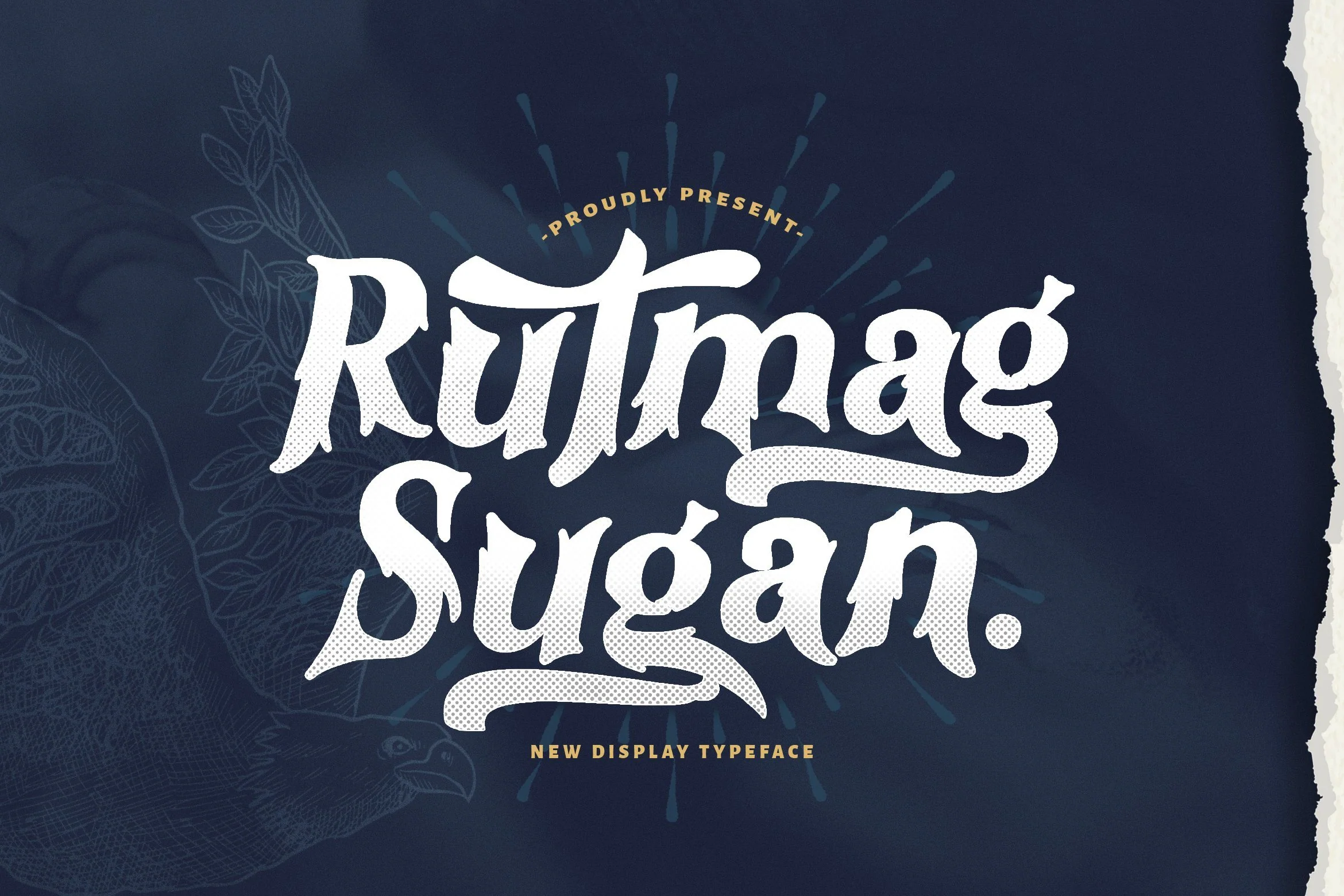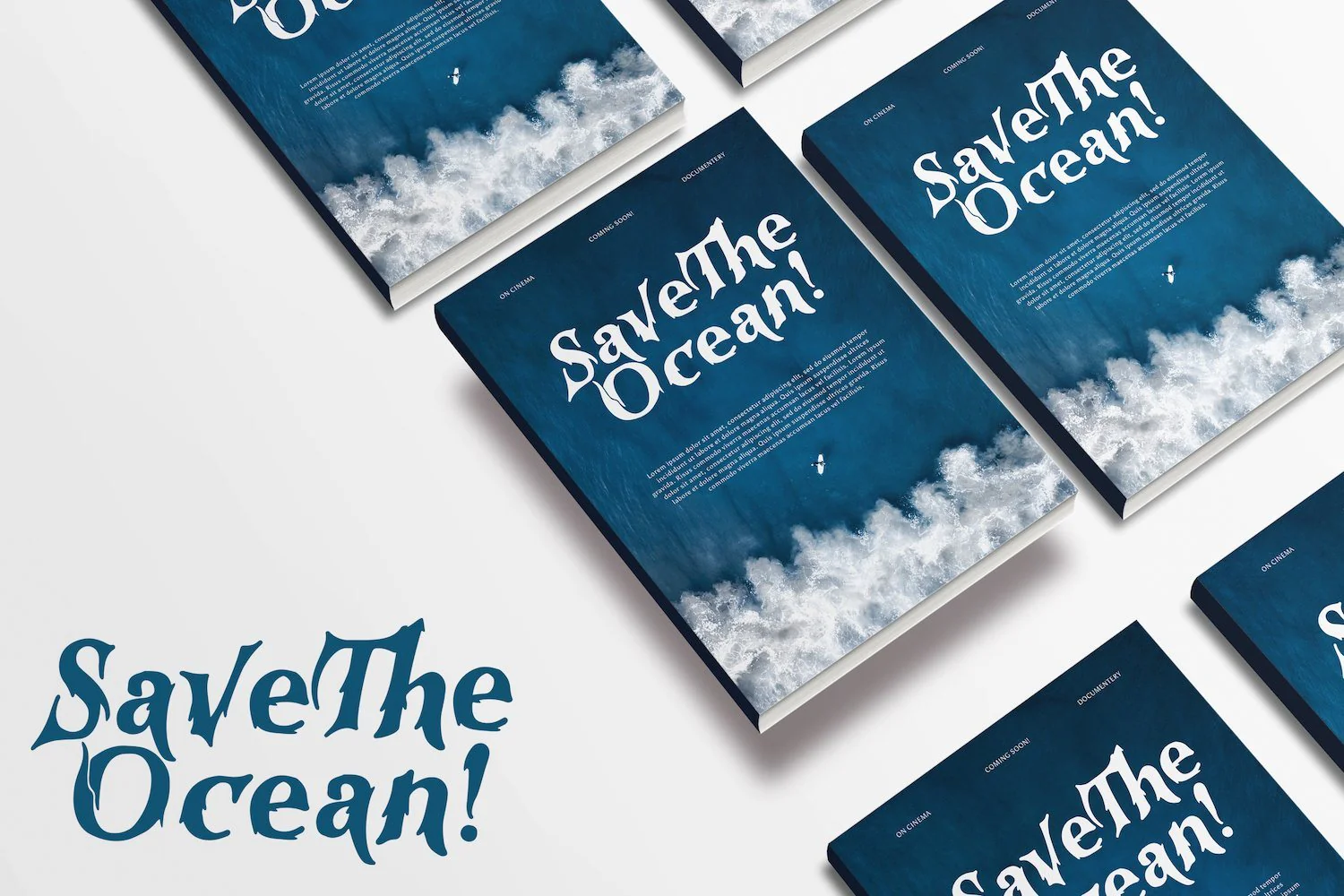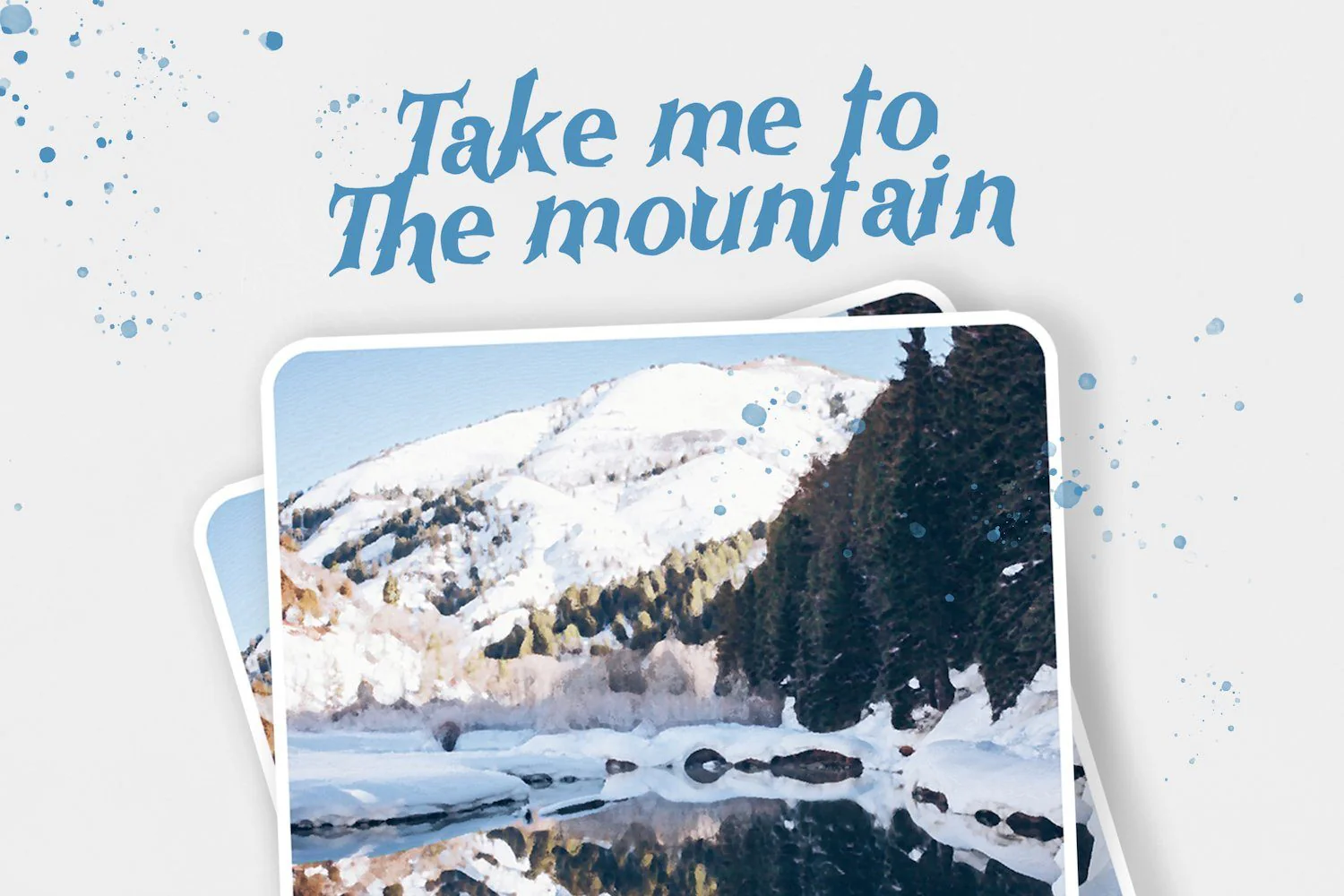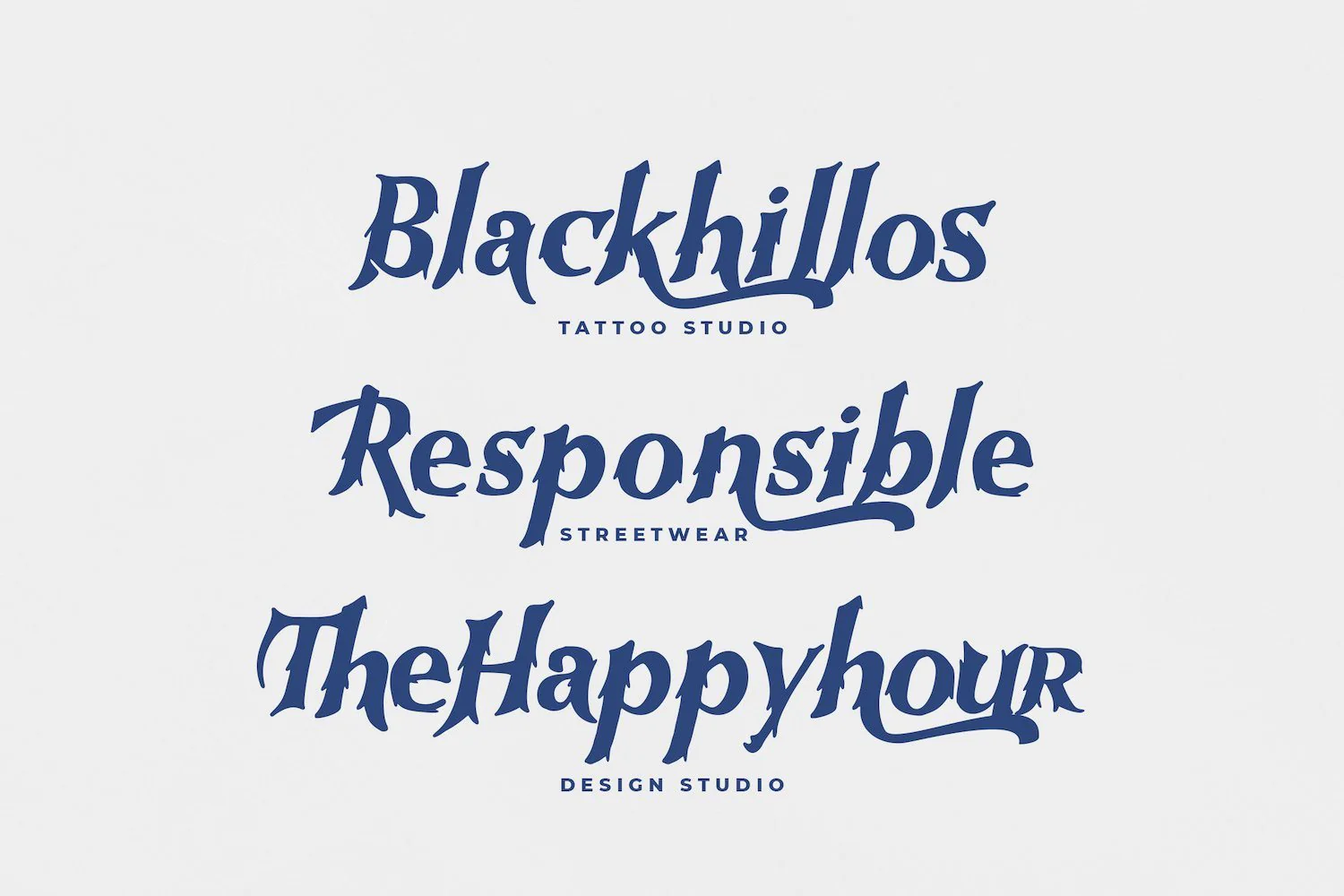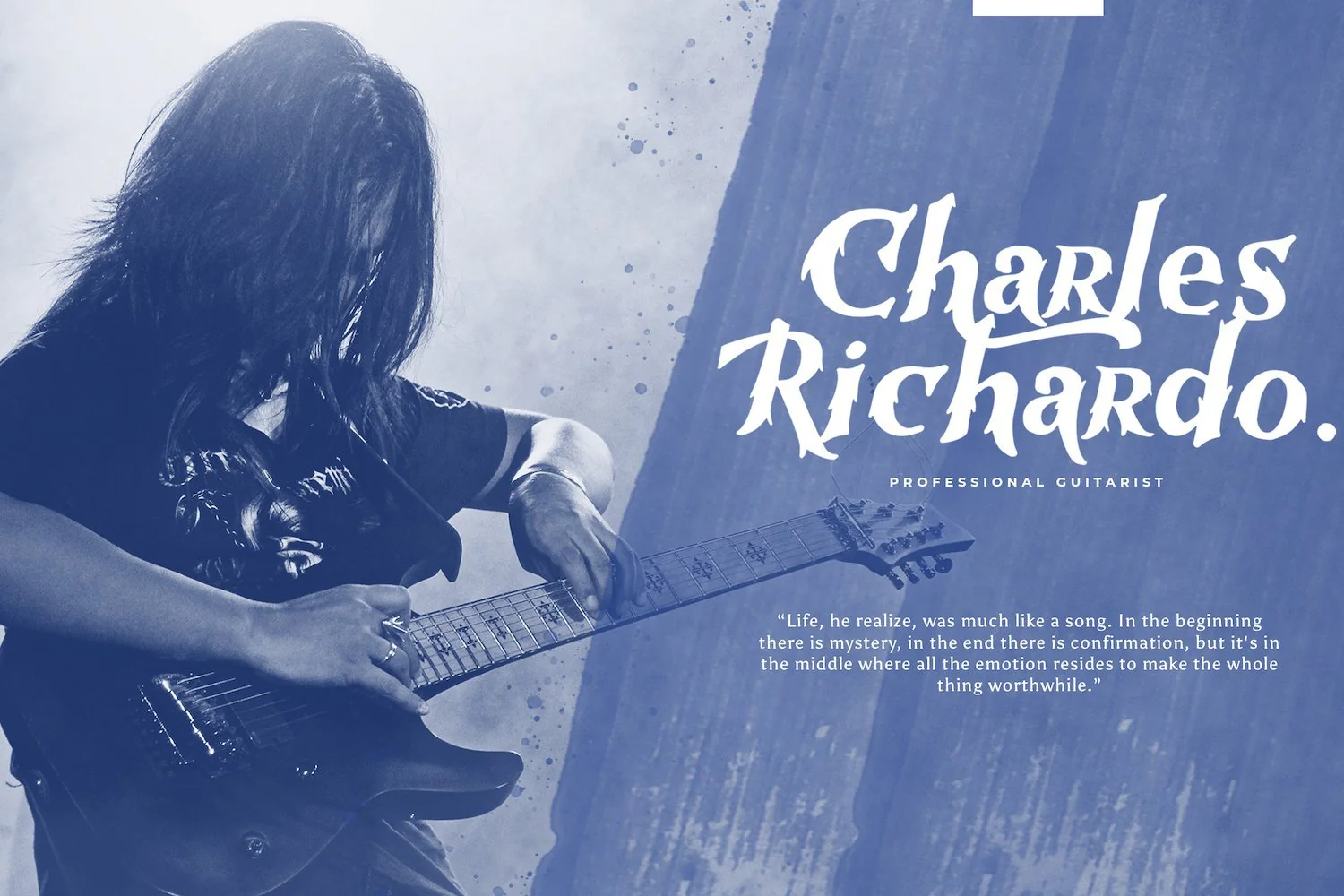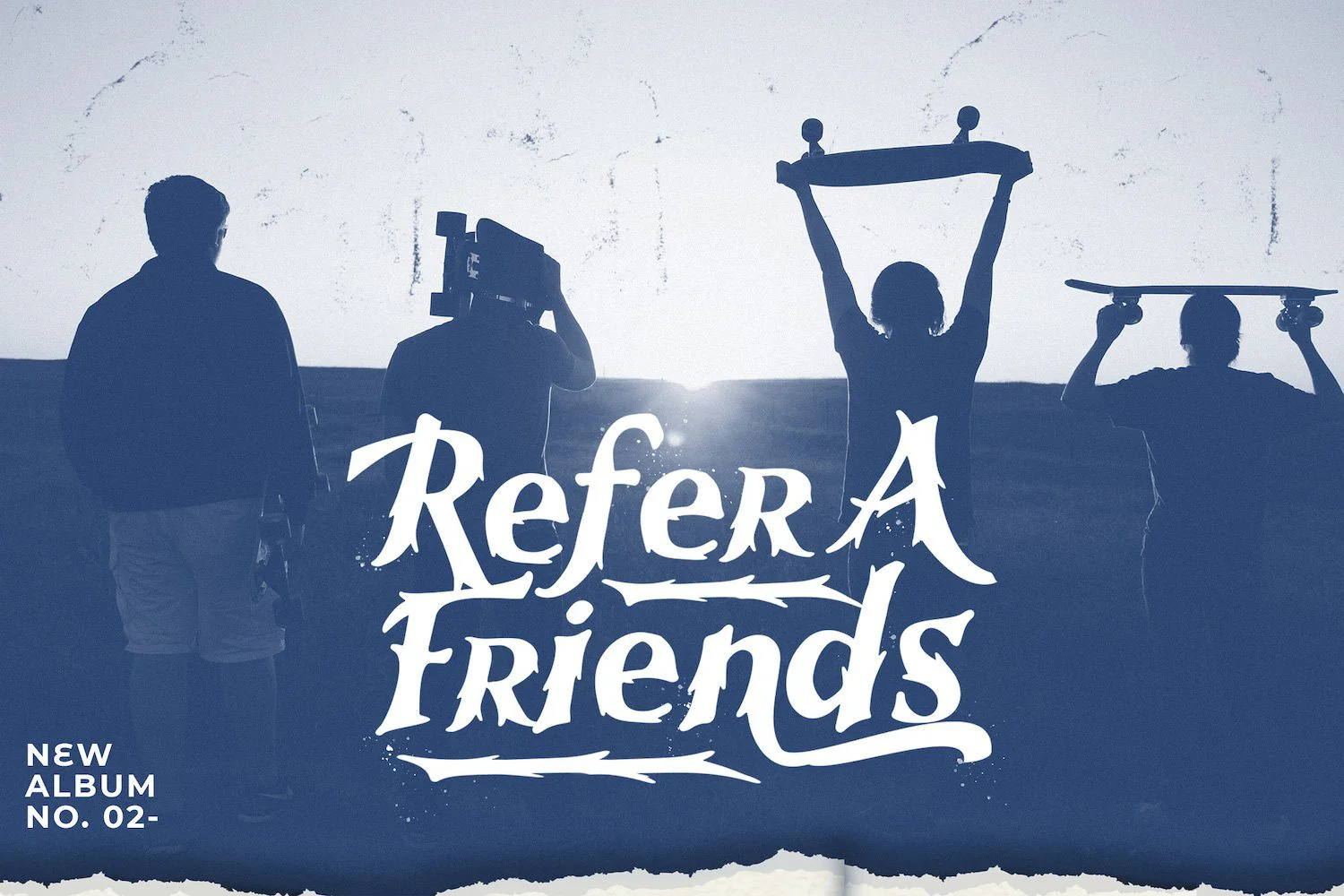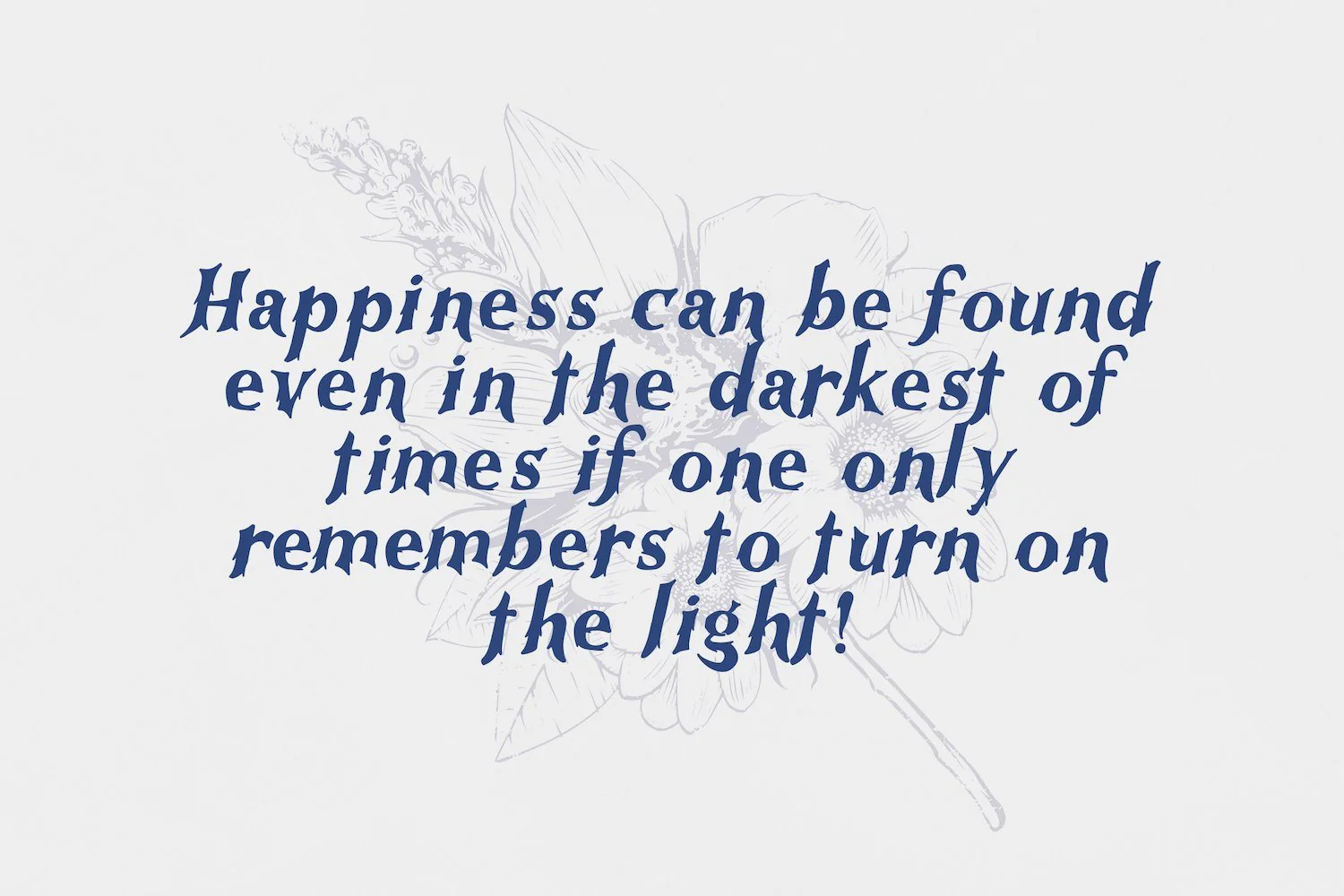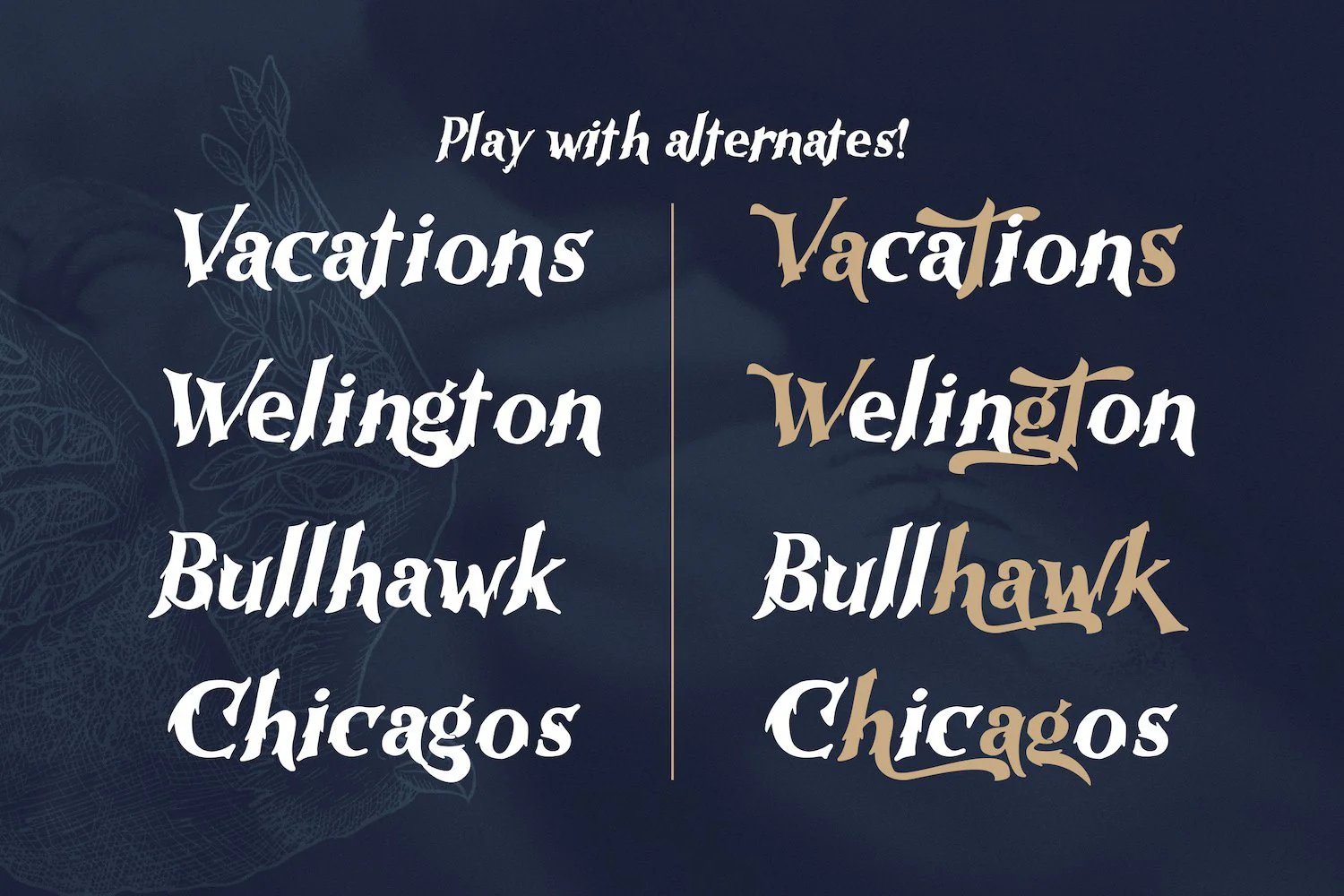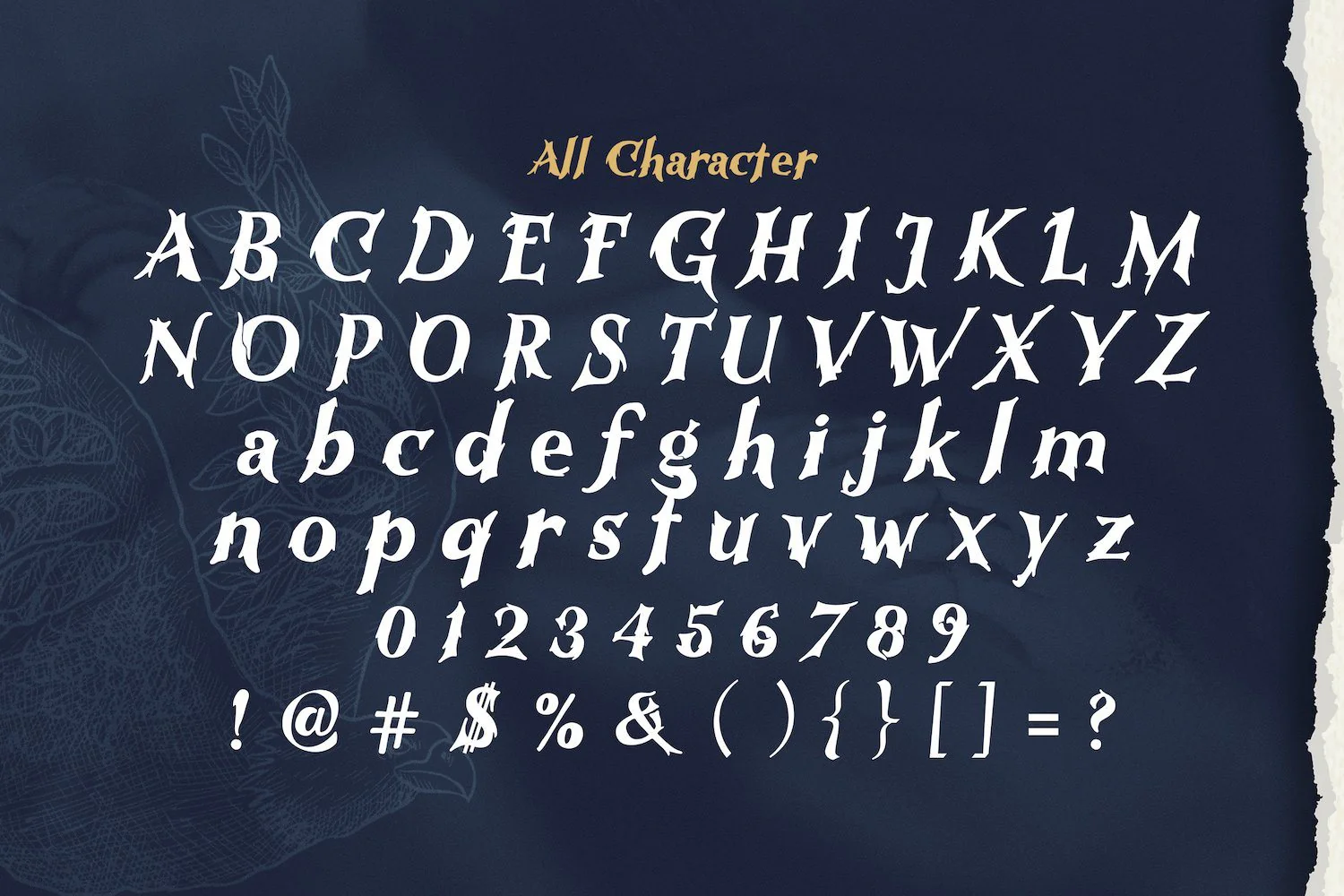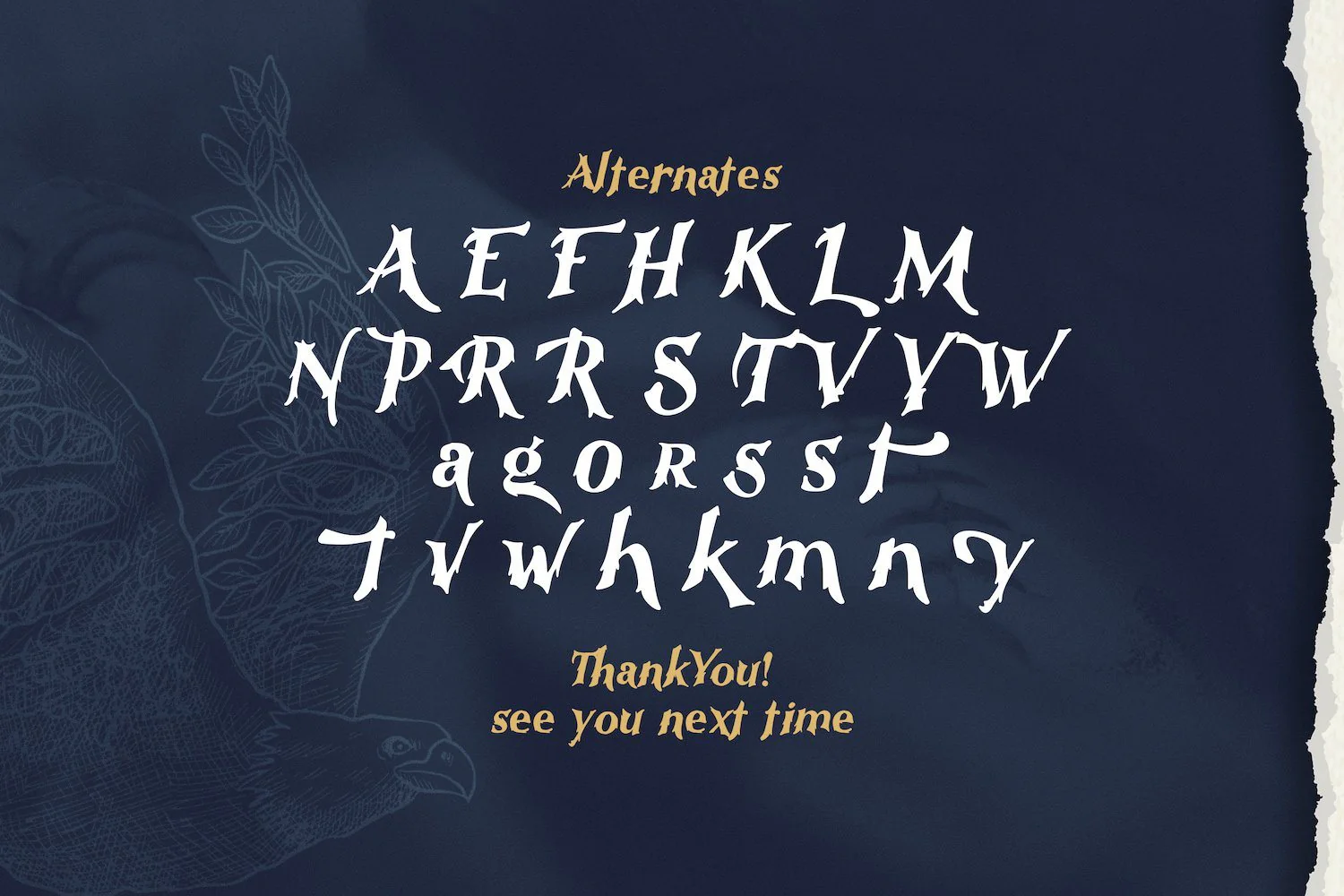
Rutmag Sugan - Decorative Display Font
Introducing Rutmag Sugan - Decorative Display Font
Rutmag Sugan is a unique, stylish and elegant decorative font. This typeface will look truly outstanding in a wide range of contexts.
Introducing Rutmag Sugan - Decorative Display Font
Rutmag Sugan is a unique, stylish and elegant decorative font. This typeface will look truly outstanding in a wide range of contexts.